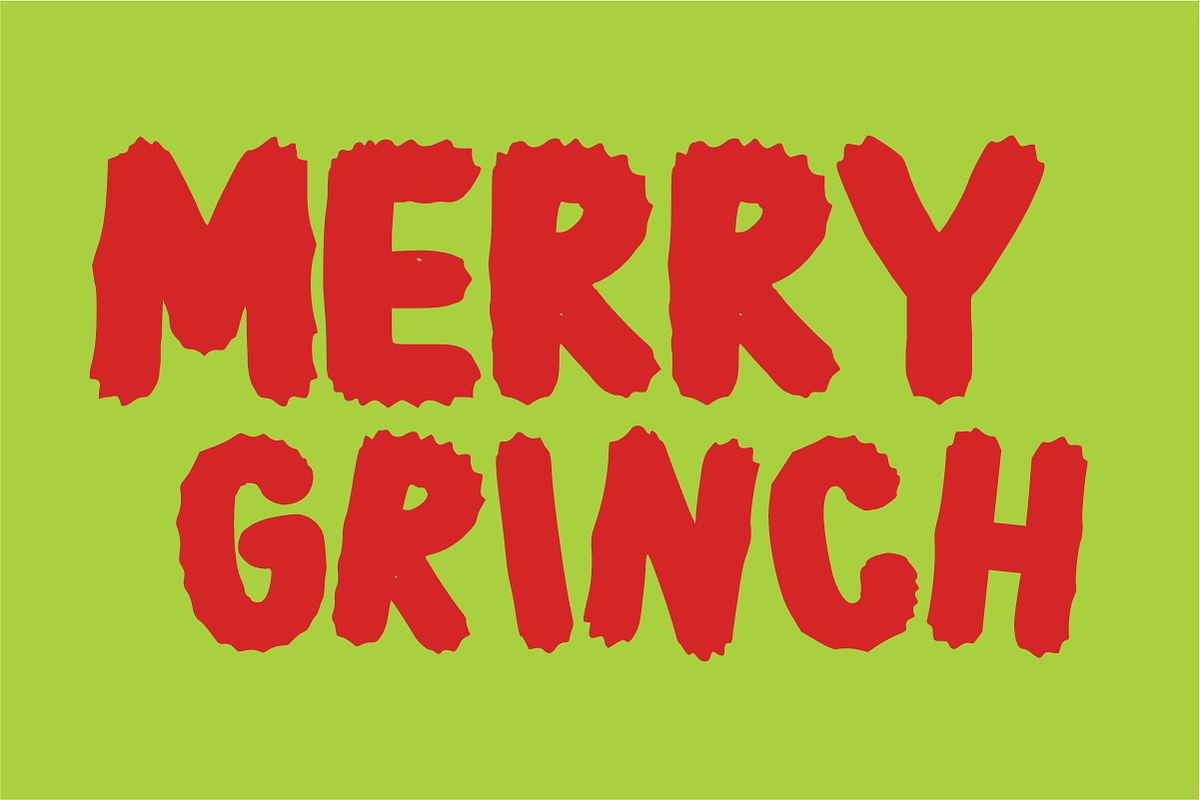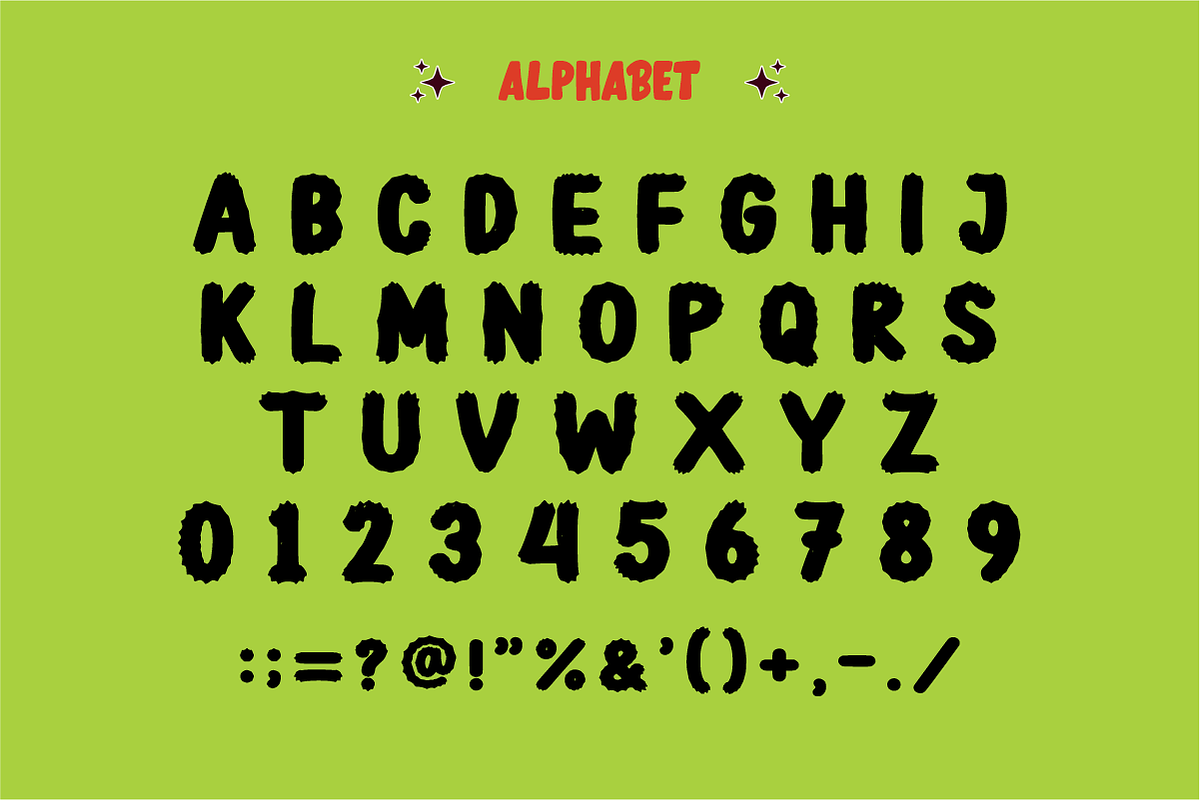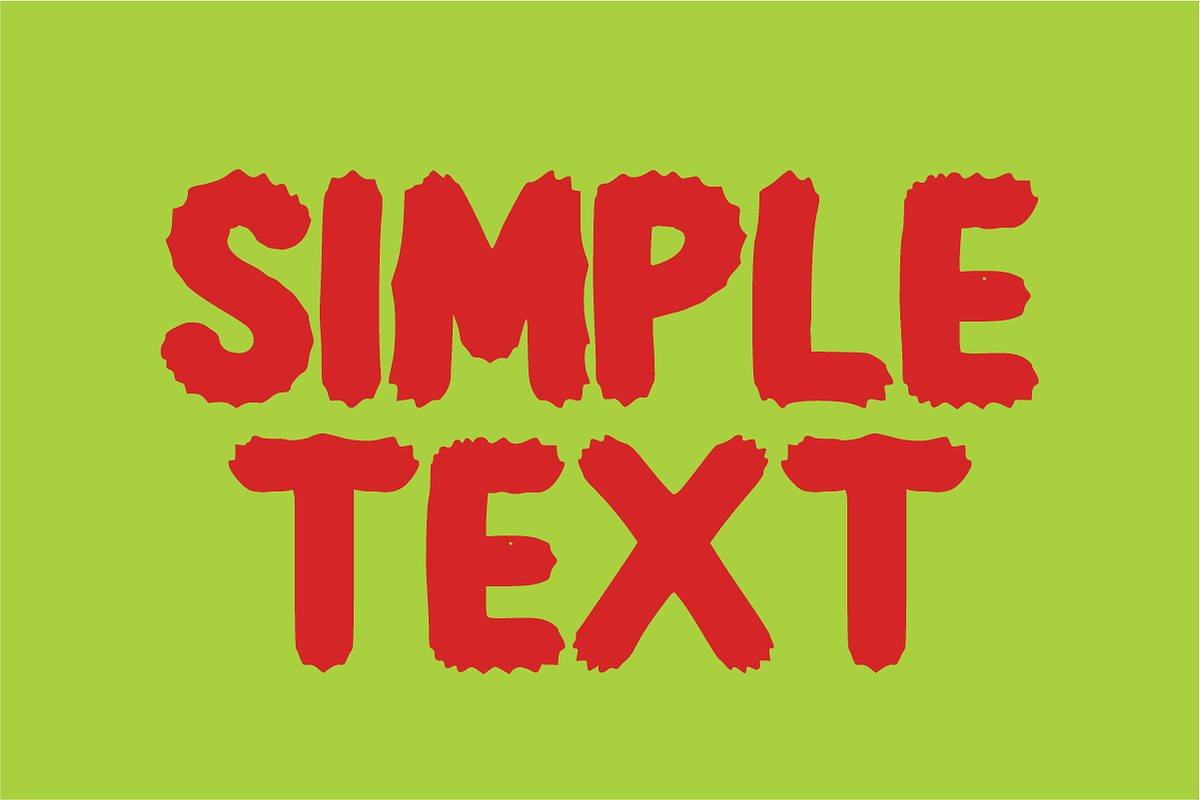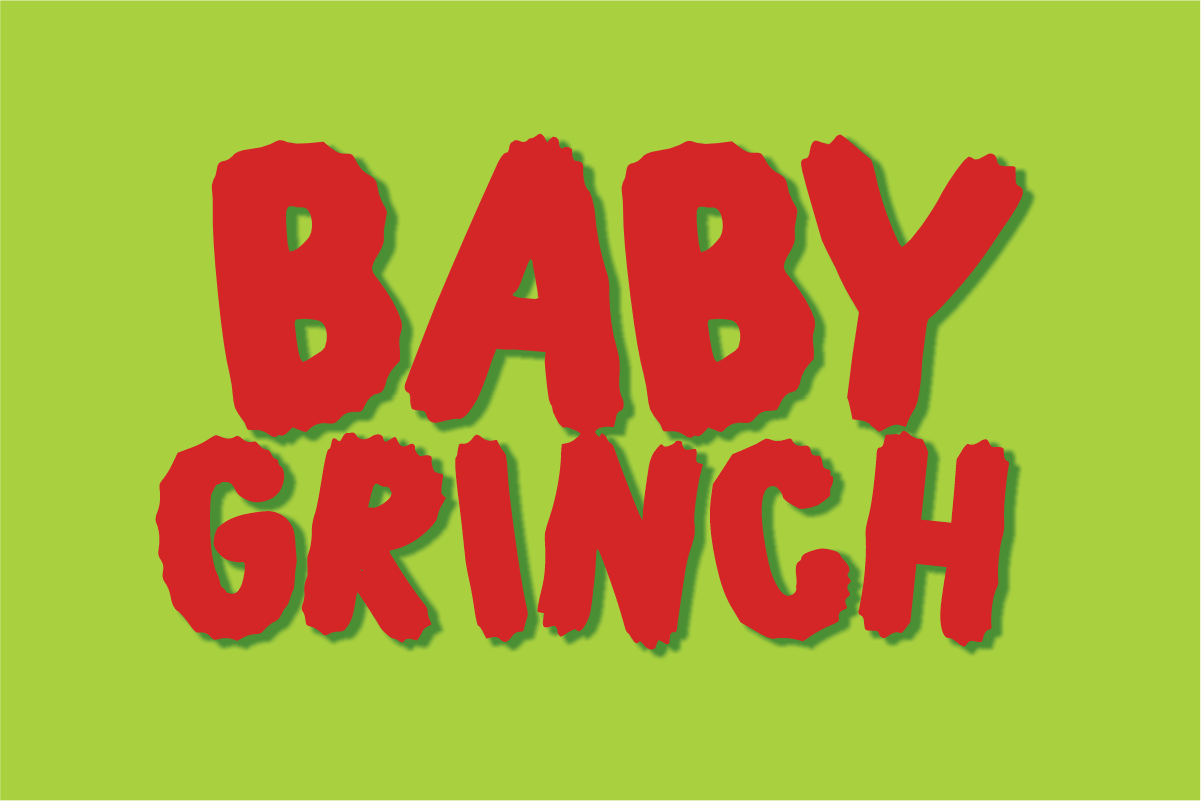
Baby Grinch - Playful Textured Font
Baby Grinch is a mischievous, chunky display font featuring fun, rough-textured edges and a whimsical cartoon style. Perfect for holiday themes, creature-inspired decorations, and kids' crafts, this playful font brings a lively, energetic pop to any headline. The vector paths are optimized to retain its unique texture while remaining easy to use for high-resolution print and design projects.
Uppercase Character Set
Numbers & Basic Punctuation
Ideal For:
Holiday designs, Christmas themes, and spooky seasonal decorations
Custom die-cut stickers, enamel pins, and planner decals
Kids' apparel, t-shirt prints, and custom merchandise
Playful cartoon logos, book headers, and monster-themed branding
Eye-catching social media graphics and YouTube thumbnails
Cricut, Silhouette, and DIY vinyl craft projects